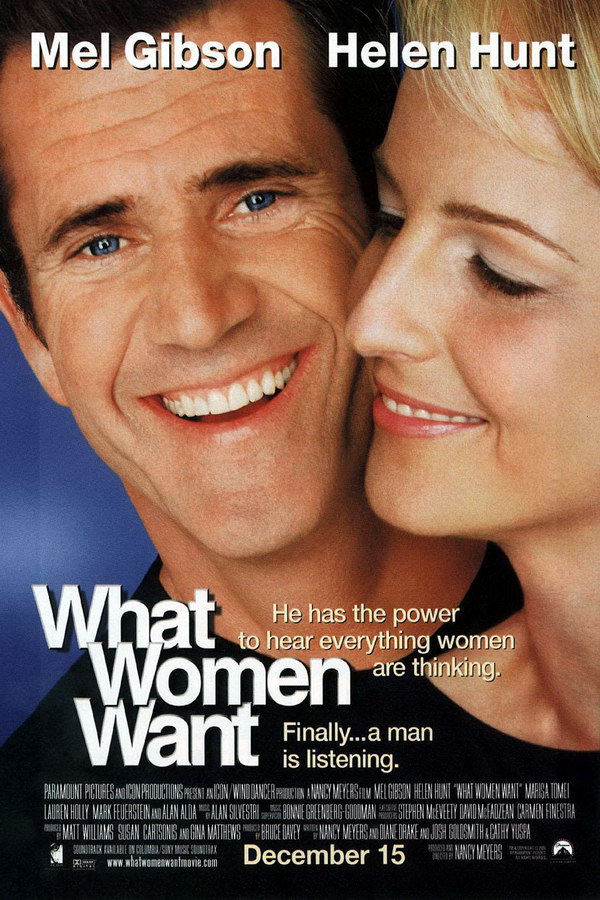
What Women Want Font
FantasyWhat Women Want is is a 2000 romantic comedy film directed by Nancy Meyers. It follows a man who gains the ability to hear women's thoughts and uses it to his advantage in both his personal and professional life.